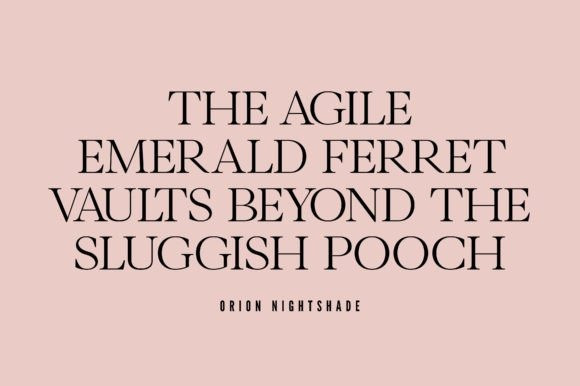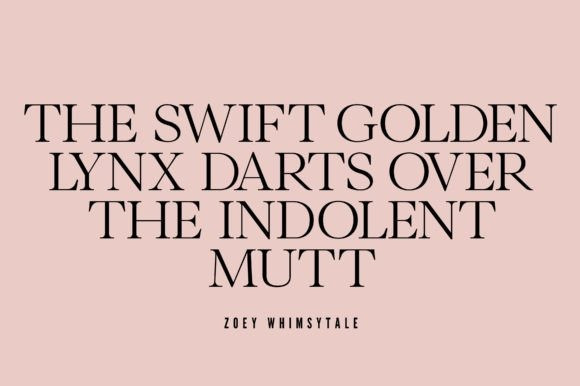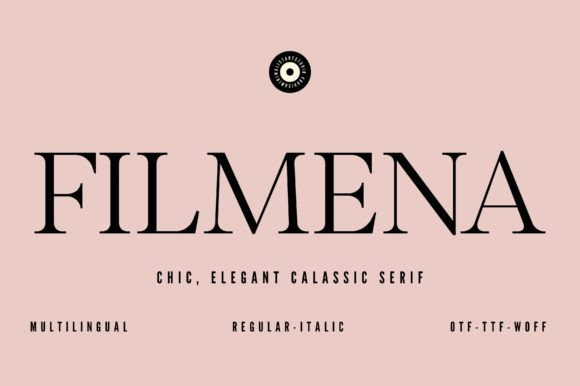
Filmena Font
Filmena Font is a blend of timeless elegance and modern flair. This chic serif typeface captures vintage film title charm while staying fresh and versatile. Crafted with precision, Filmena’s graceful curves and balanced lines add sophistication to logos, invitations, and more. It’s a journey through eras, fusing classic and contemporary to elevate your designs. Discover the allure of Filmena and let your creativity thrive in a world where past meets present.